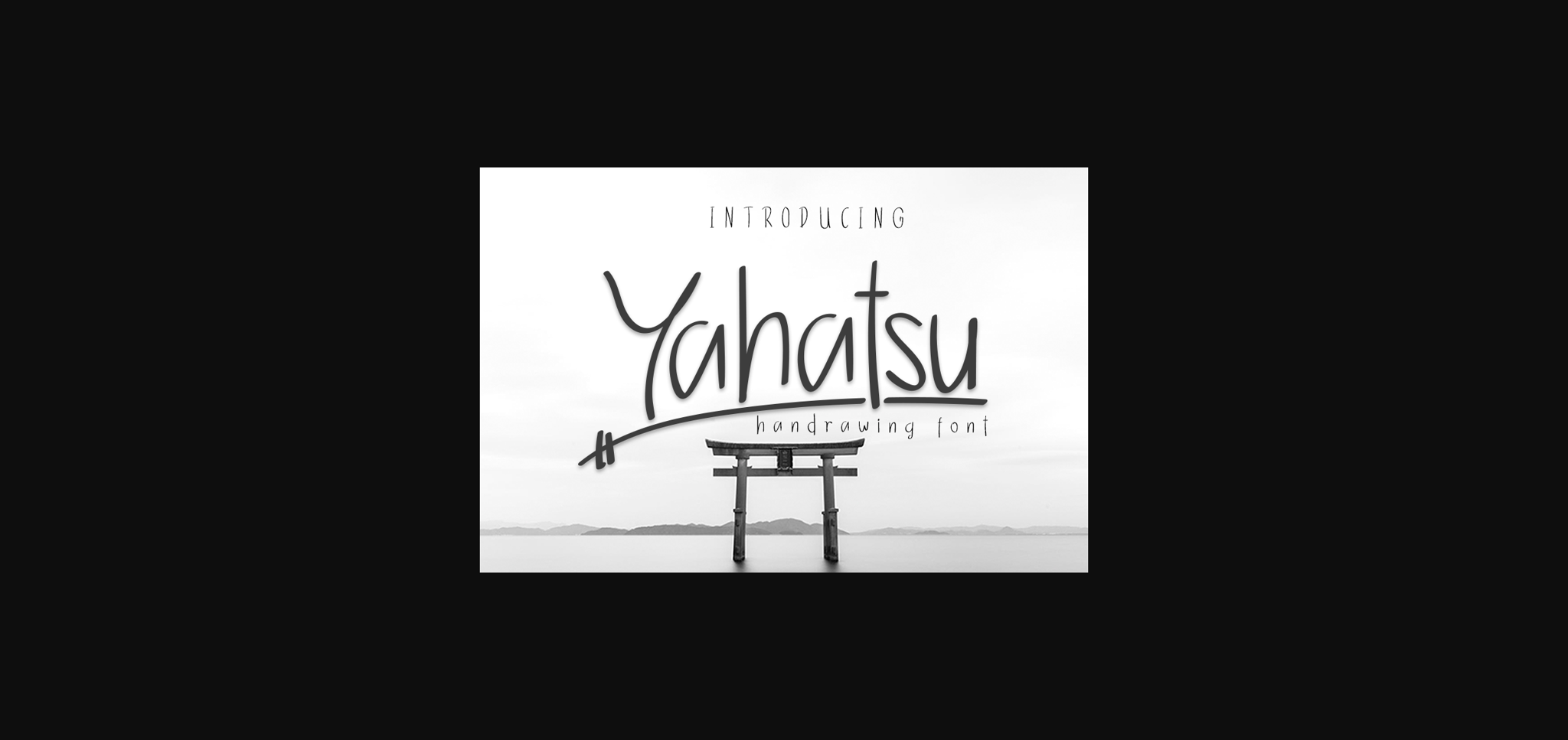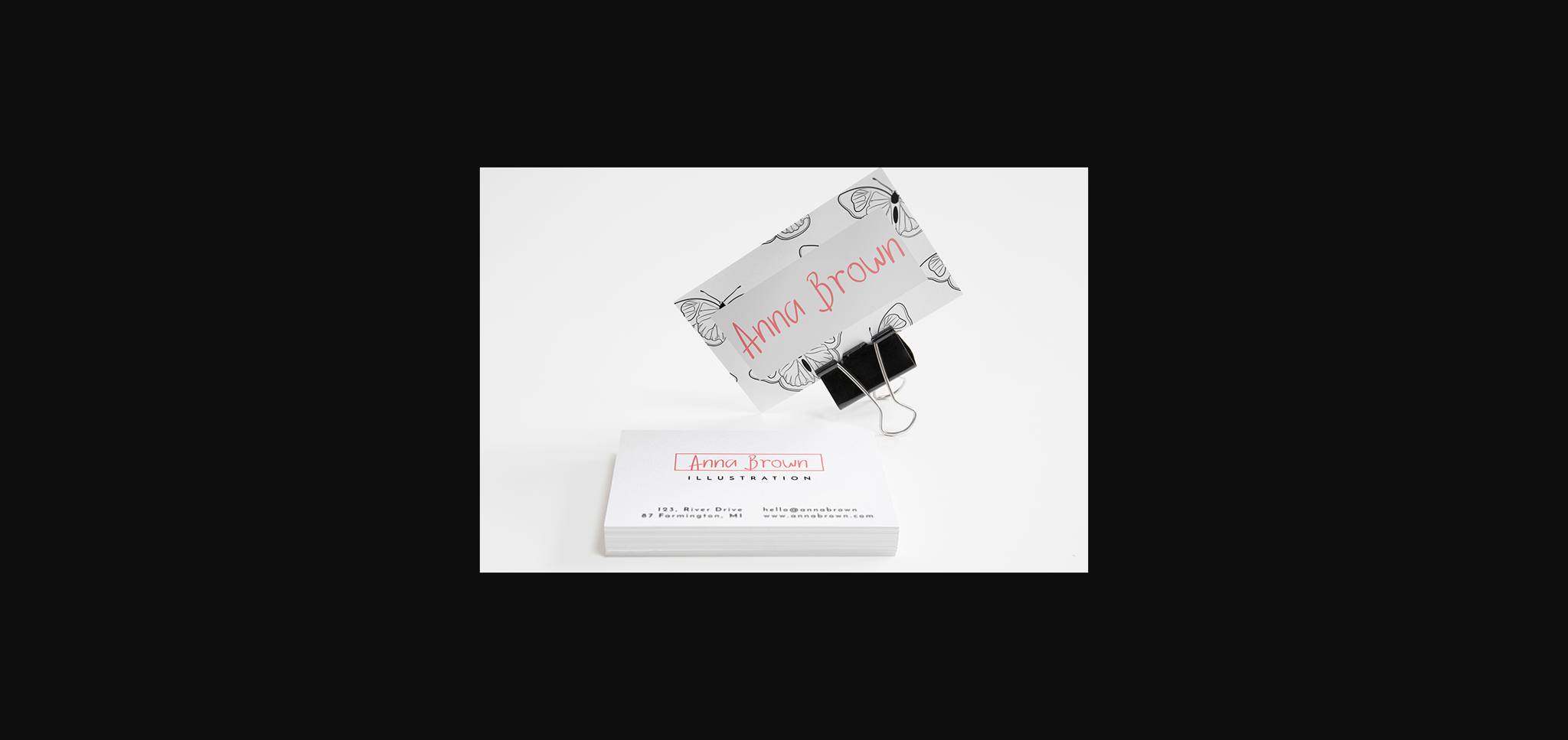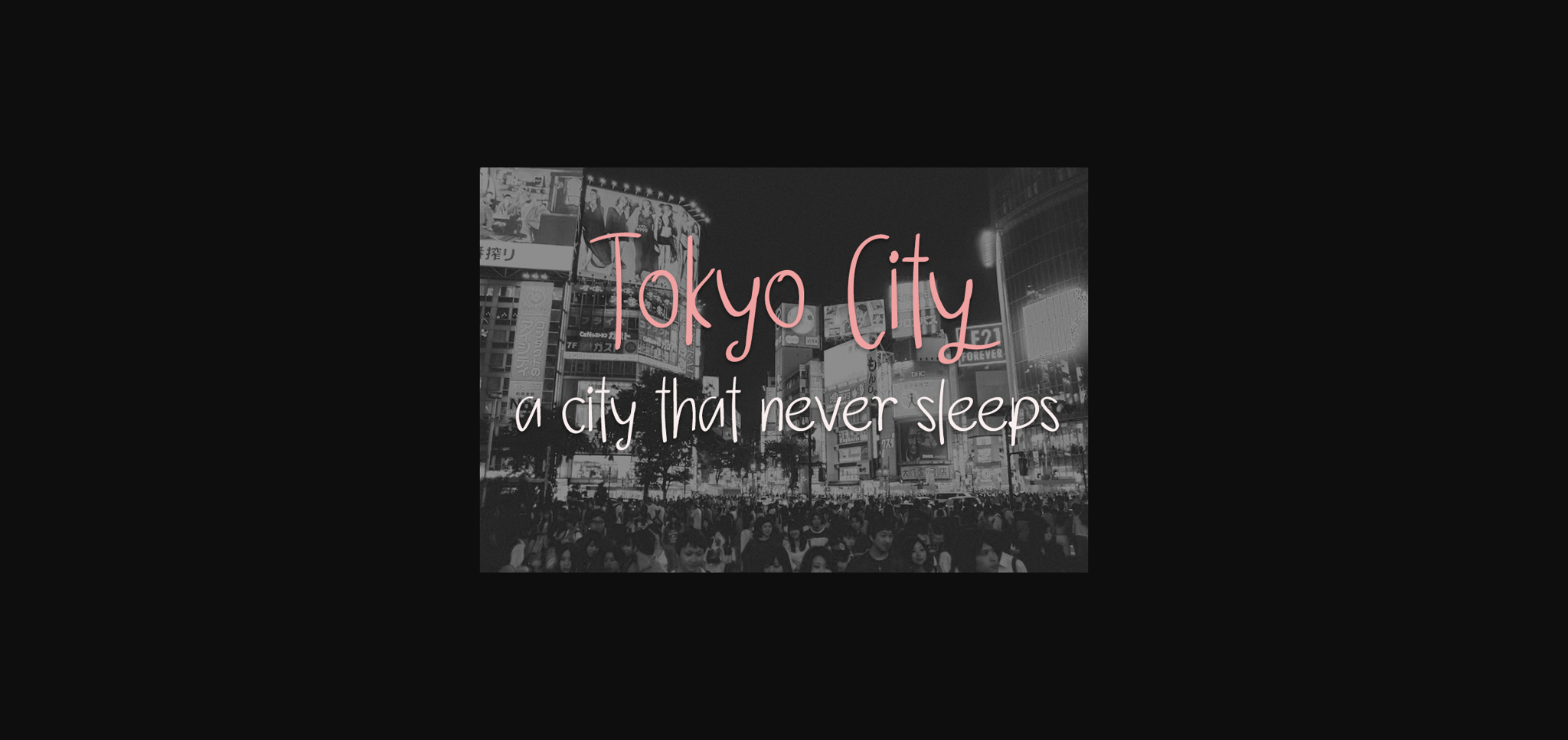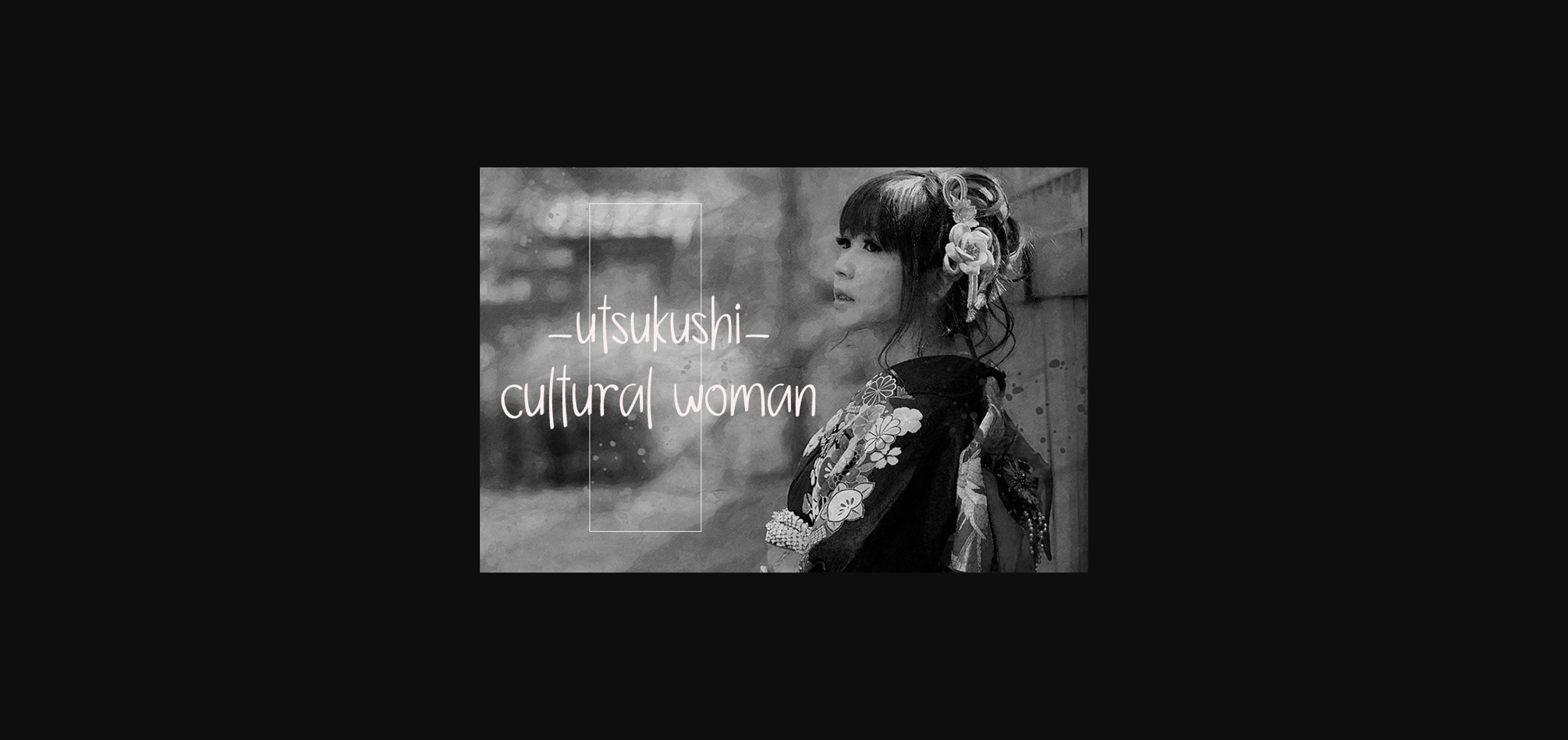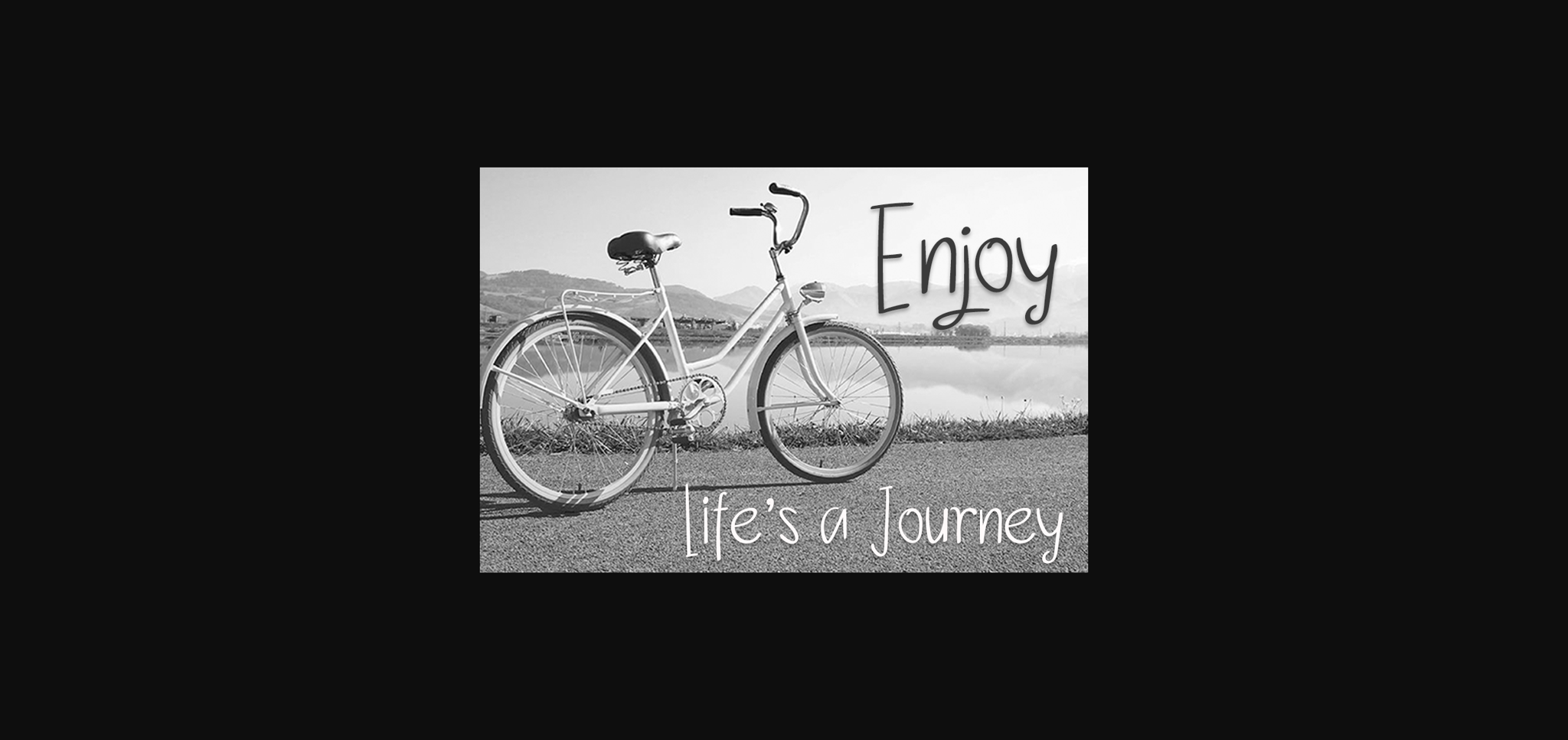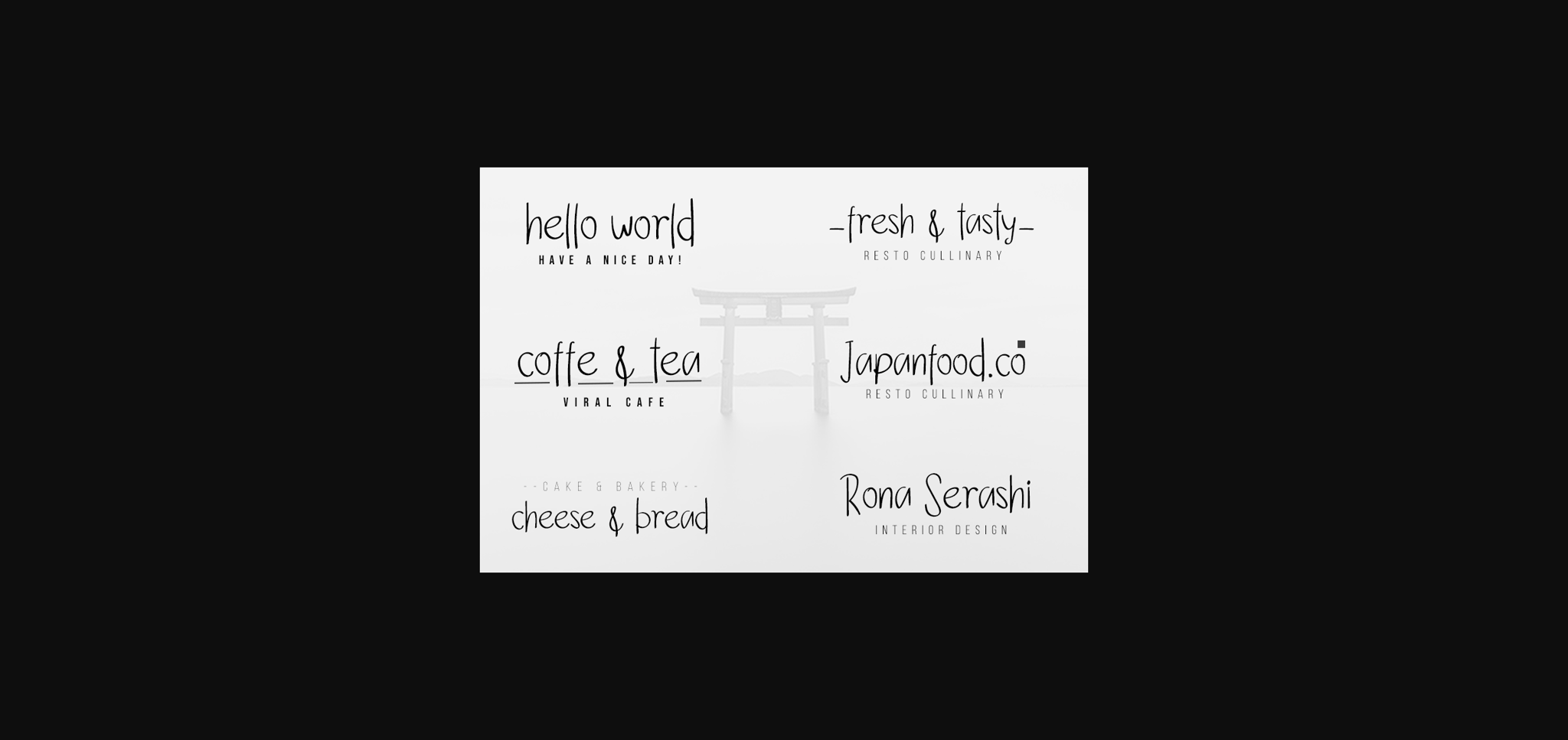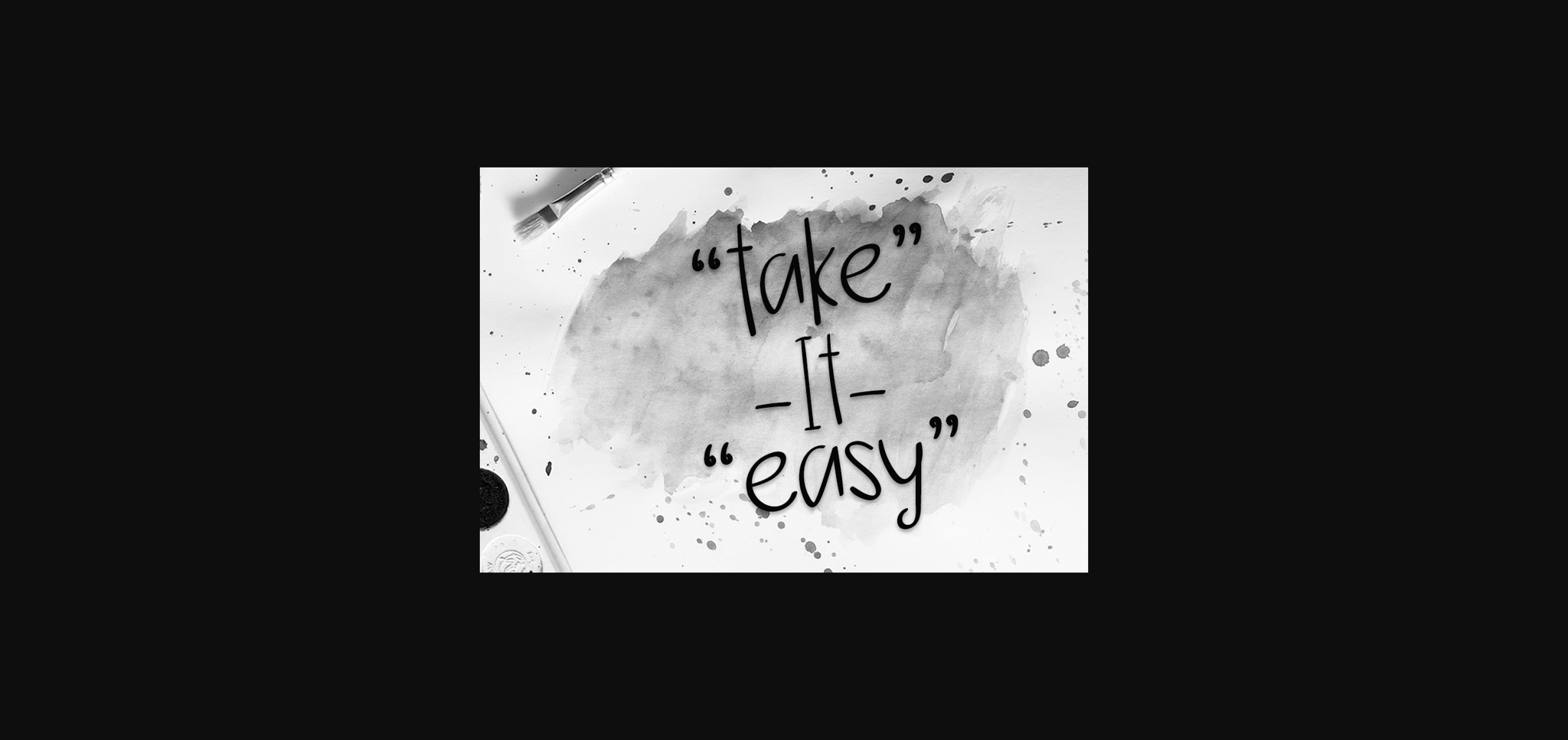
HomeSans Serif FontsYahatsu Font Sans Serif Fonts Yahatsu Font FacebookXPinterestWhatsApp 1 of 11 ... Yahatsu Font Poster 2... Yahatsu Font Poster 3... Yahatsu Font Poster 4... Yahatsu Font Poster 5... Yahatsu Font Poster 6... Yahatsu Font Poster 7... Yahatsu Font Poster 8... Yahatsu Font Poster 9... Yahatsu Font Poster 10... Yahatsu Font Poster 11... About Yahatsu Font Yahatsu simplifies elegance into one truly outstanding sans serif font. This font will look outstanding in any context, whether it’s being used on busy backgrounds or as a standalone headline! DOWNLOAD NOW People also explored Milestone Halloween Font Infinity Freaks Font Teddy Bears Font Gheysha Font Radhetya Font Forths Font Outline Font Lovely Golden Font 316 0 TagsYahatsuYahatsu Font Previous articleMercuria FontNext articleQuinstar Font LEAVE A REPLY Cancel reply Comment: Please enter your comment! Name:* Please enter your name here Email:* You have entered an incorrect email address! Please enter your email address here Website: Save my name, email, and website in this browser for the next time I comment. Personal Use Free Happy Garden Personal Use Free Read more about this font Green Fuz Personal Use Free Read more about this font Mama Personal Use Free Read more about this font Barokah Personal Use Free Read more about this font BLOG How to Cut Any Font on Cricut: Convert a Font to SVG (Free) Turn any font into a clean SVG so it cuts crisp on Cricut - a quick 3-step workflow using a free font-to-SVG tool. Exploring Font Trends The 10 Best Handwriting Fonts to Add Personality to Your Designs Transform Your Website: Elevate Your Typography with 7 Best Web Font Generators